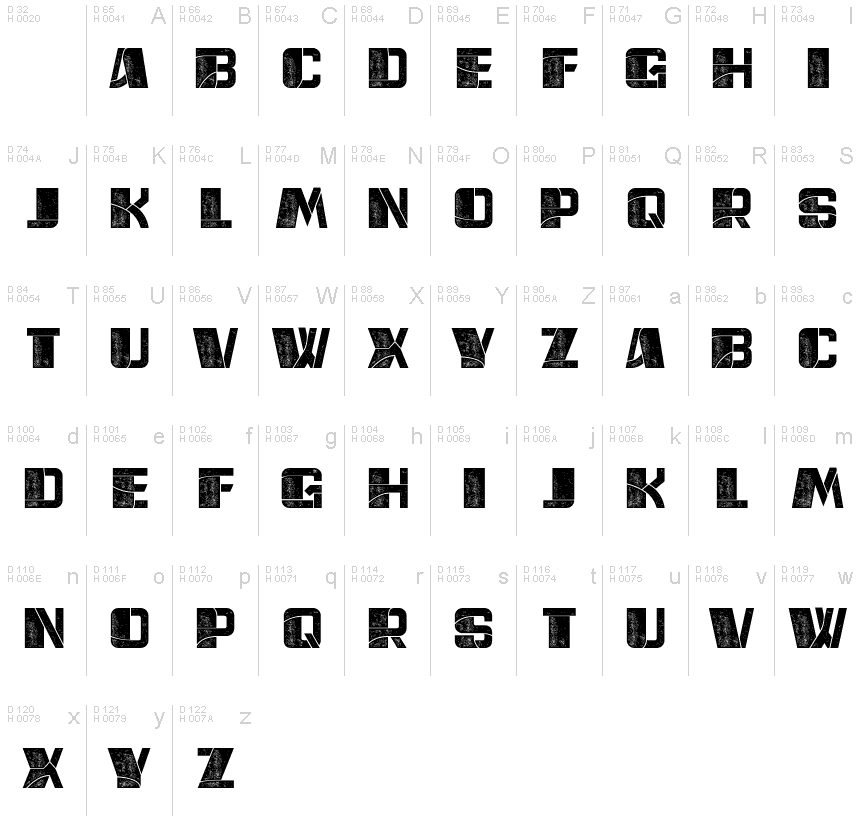
Le Toit Dusted Regular
Le Toit Dusted font is a bold eroded typeface designed by Vladimir Nikolic.
"Le Toit" comes in Regular, Book, and Dusted versions!